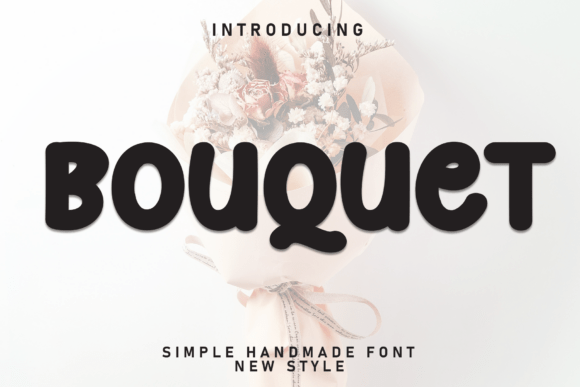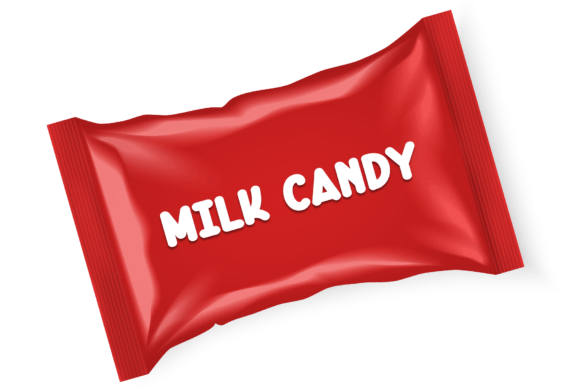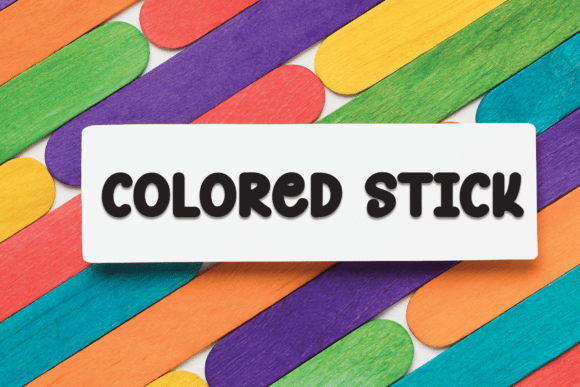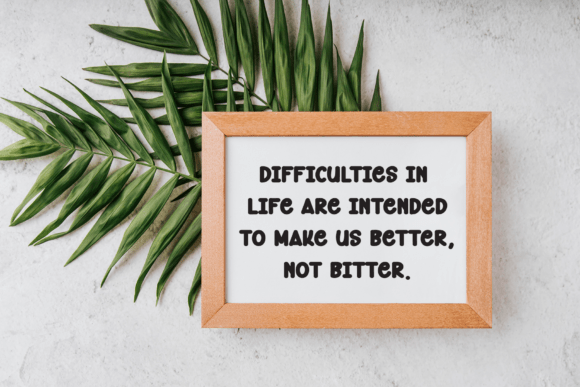
Bouquet Font: Cute Display Font for Social Media & Branding
About the Bouquet Font
Crafted with precision, the Bouquet Font is ready to bring your ideas to life. Bouquet is a casual and neat display font that radiates a fresh, friendly vibe. With clean lines and a relaxed structure, it’s perfect for packaging, posters, and social media graphics. The approachable design adds charm and clarity to projects while maintaining a polished appearance.
Bouquet’s friendly personality makes it ideal for branding projects targeting a younger demographic, food and beverage packaging, and event posters. It also works well in short-form social media content where its casual elegance shines. However, its display nature makes it unsuitable for body text or UI elements requiring high readability at smaller sizes. Avoid using it for lengthy paragraphs or dense information.
Pairing Bouquet with a clean sans-serif like Open Sans for body text creates a strong visual hierarchy. For a more playful feel, consider a rounded geometric sans-serif such as Lato. Alternatively, a delicate script font could add a touch of sophistication to headings while maintaining the overall friendly aesthetic.
Its overall feel is upbeat and approachable, lending itself to brands focusing on positivity, community, and fresh perspectives. Avoid using it for projects requiring a serious or corporate image.
Bouquet Font Usage Examples
Bouquet Font Example